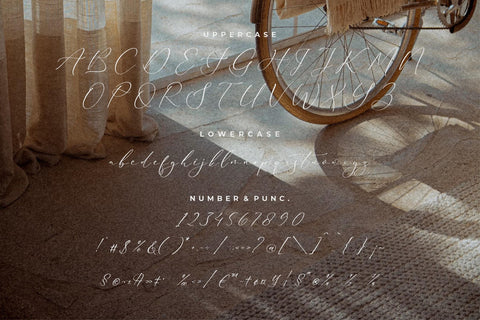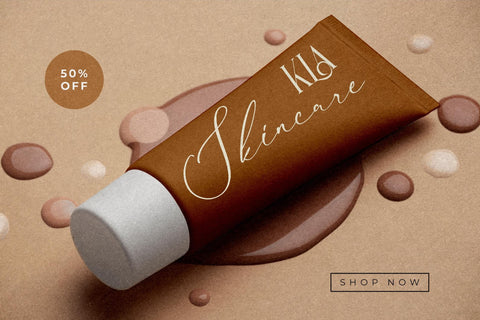
Rematho Klorofiland Duo Font
Proudly present Rematho Klorofiland Duo Font , created by Storytype,
A serif and script typeface that has own unique style & modern look.